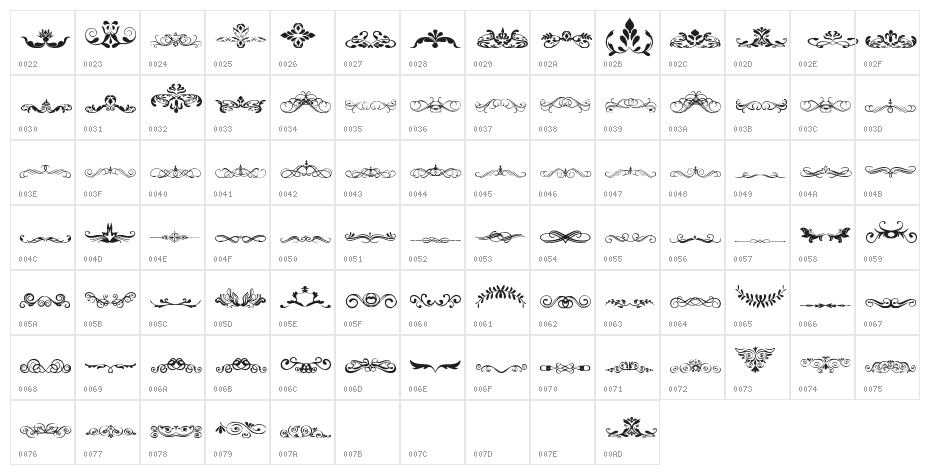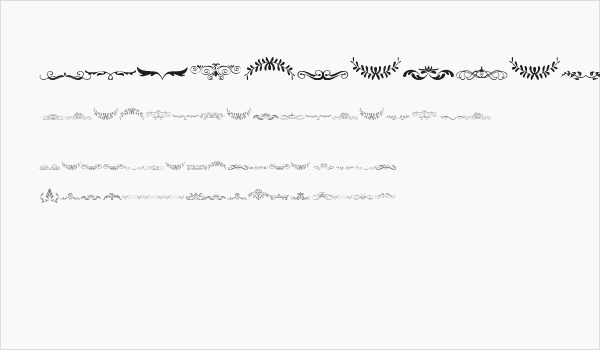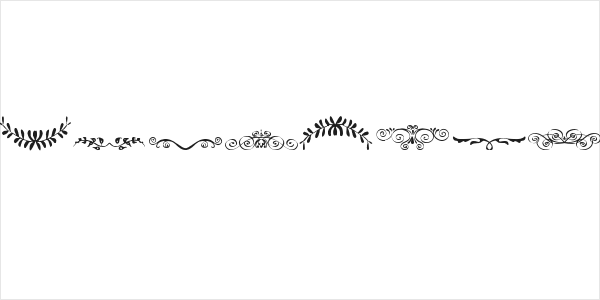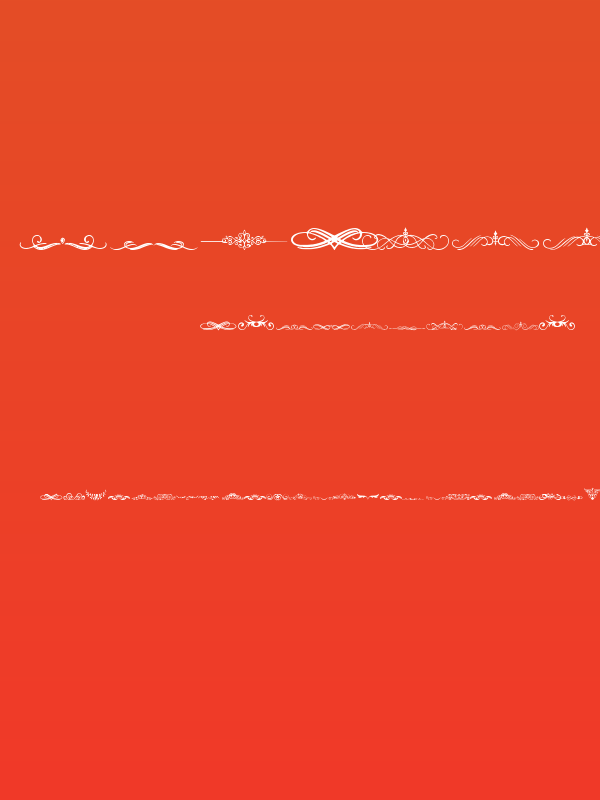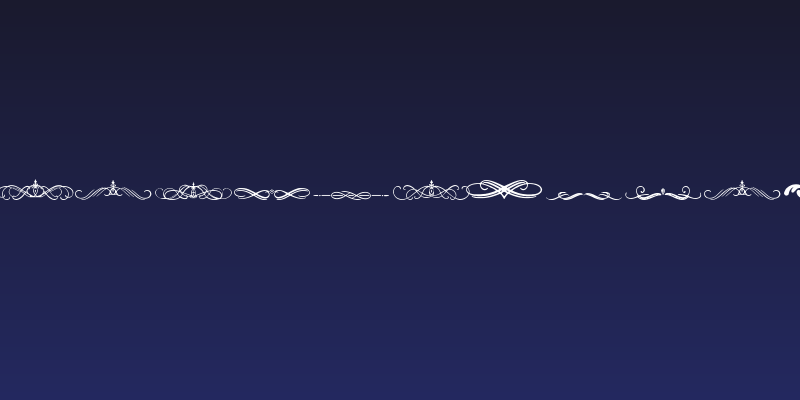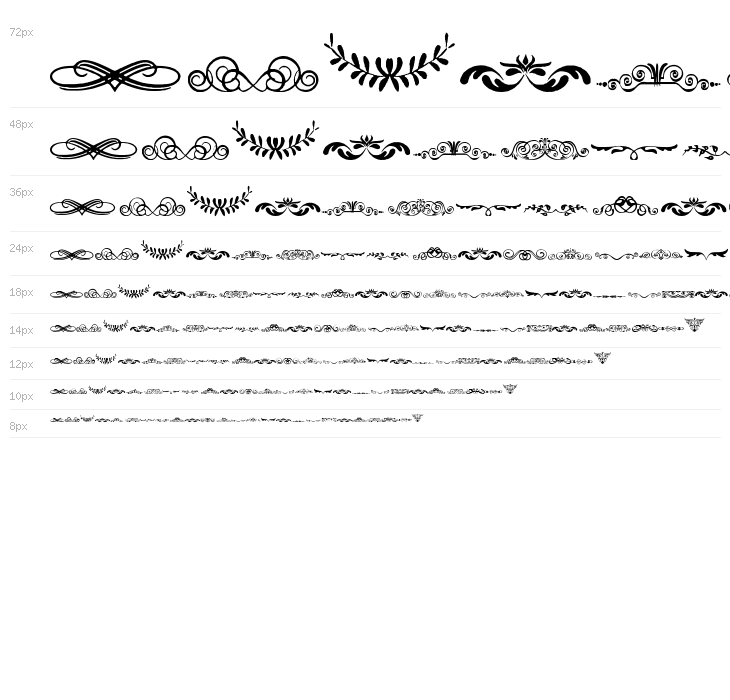
Vintage Decorative Signs 5 Font
Vintage Decorative Signs 5 Description
A collection of ornate, vintage-style decorative borders and flourishes featuring intricate swirls, floral motifs, and symmetrical designs. Each element is highly detailed and evokes a classic, elegant aesthetic reminiscent of antique signage or invitations.
| Overall Style | Vintage, Decorative, Ornate |
| Use Case | Borders, Frames, Decorative accents |
| Proposed Projects | Wedding invitations, certificates, vintage posters, restaurant menus, event programs, book covers, decorative signage. |